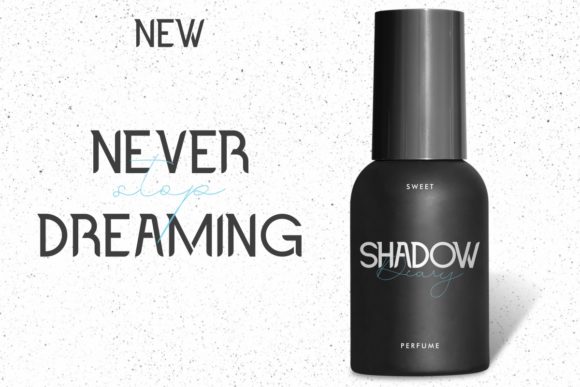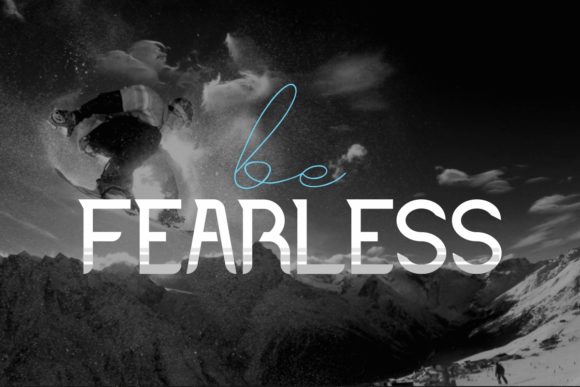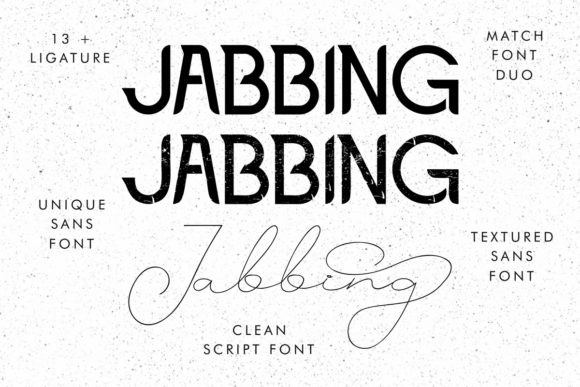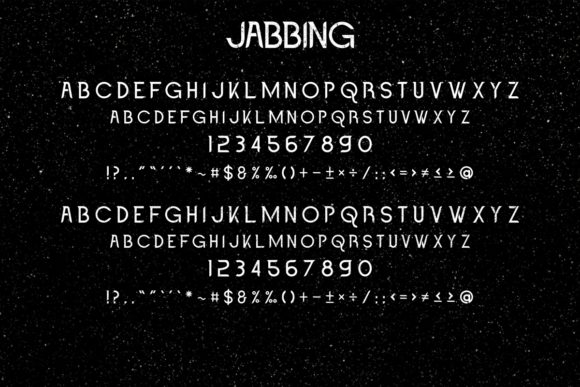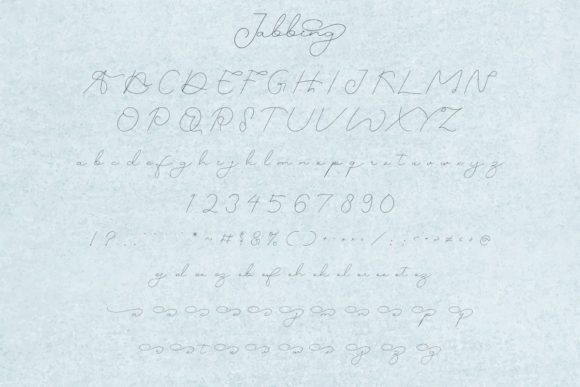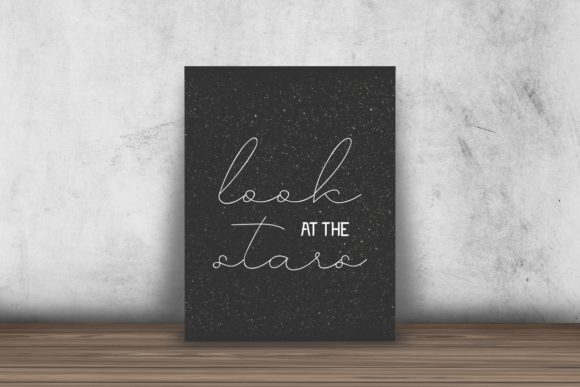
Introduction to Jabbing Font
Have you ever been working on a creative project, pouring your heart and soul into a design, only to feel like it’s missing that special something? The perfect font can make all the difference in taking your design from good to great. For designers looking for a modern and eye-catching display font, look no further than the Jabbing Font.
As a valuable resource for designers, the Jabbing Font offers a clean and sleek aesthetic that is perfect for any poster, flyer, or print design. Its high quality and versatility make it an ideal choice for a wide range of creative projects, from branding and marketing materials to editorial and artistic endeavors.
Whether you’re looking for a free download or want to explore its endless possibilities, the Jabbing Font is a must-have in any designer’s toolkit. With its transparent background and modern design, it’s the perfect tool to help bring your creative vision to life.
Key Features of Jabbing Font
- Unique, bold font style with a transparent background for versatile use
- Perfect for designers and artists looking for a distinctive typographic element
Honest Review: Jabbing Font
I recently stumbled upon the Jabbing Font, and I must say it’s been a great addition to my design resource library. I was initially drawn to its unique and quirky aesthetic, which I believe would be perfect for creative projects that require a touch of playfulness.
- ✨ High-quality design: The font’s clarity and precision are top-notch, making it suitable for both print and digital applications.
- ✨ Transparent background: The font’s transparent background makes it easy to use in conjunction with other design elements without worrying about visual clutter.
- ⚠️ Limited character set: The font’s character set is somewhat limited, which might be a concern for designers working on projects that require a wide range of characters.
- ⚠️ Not ideal for formal projects: While the Jabbing Font is perfect for creative projects, it might not be the best choice for formal or professional projects that require a more conservative tone.
Overall, I’d give the Jabbing Font 4 out of 5 stars. Its unique design, high-quality construction, and free download make it a valuable addition to any designer’s library. Just be aware of its limitations, and use it accordingly to get the most out of this fantastic font.
Tips for Getting the Most Out of Jabbing Font
Use the Jabbing Font with a transparent background to create a modern and sleek design. Experiment with different font sizes and colors to add visual interest to your project.
The Jabbing Font is perfect for creating eye-catching social media graphics, presentations, and posters. Its high-quality design makes it an ideal choice for any creative project.